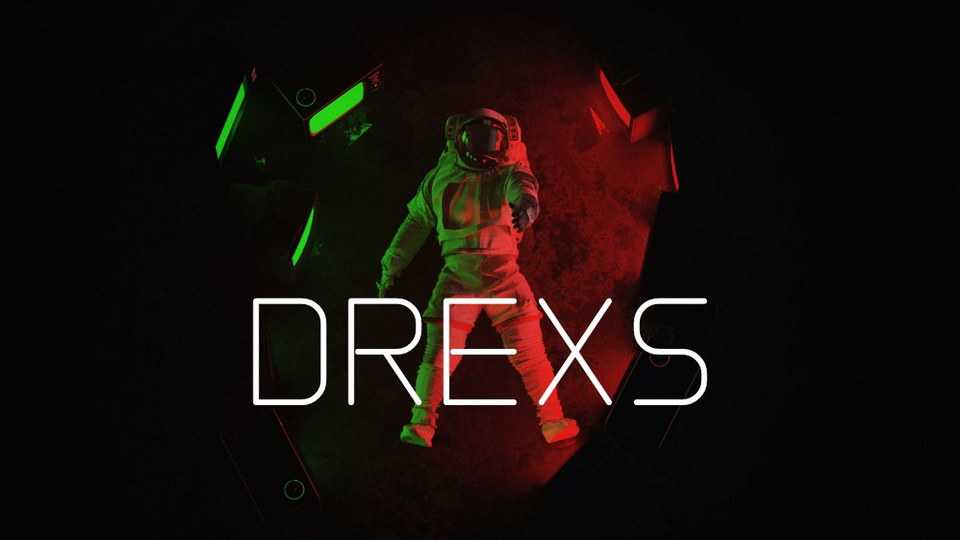
Download Drexs font, a simple, thin and futuristic display typeface. Whether you use it for designs related to web or sci-fi projects, this font will easily stand out from the crowd.